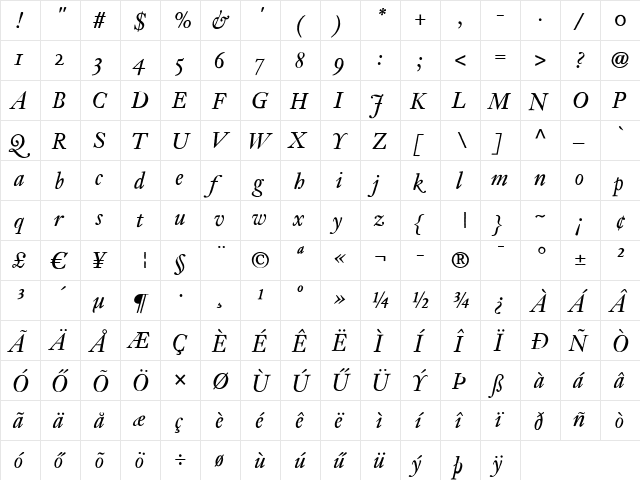
Archetype Italic
Design Context for Archetype Typeface
Archetype offers clean, dependable letterforms without strong stylistic allegiance, making it a practical choice for designers who need flexibility. The dynamic lean of this cut emphasises speed and emphasis in any layout.
Pro Tip: Try Archetype for annotation and caption copy alongside an upright companion — the contrast in angle creates a dynamic but ordered typographic system.